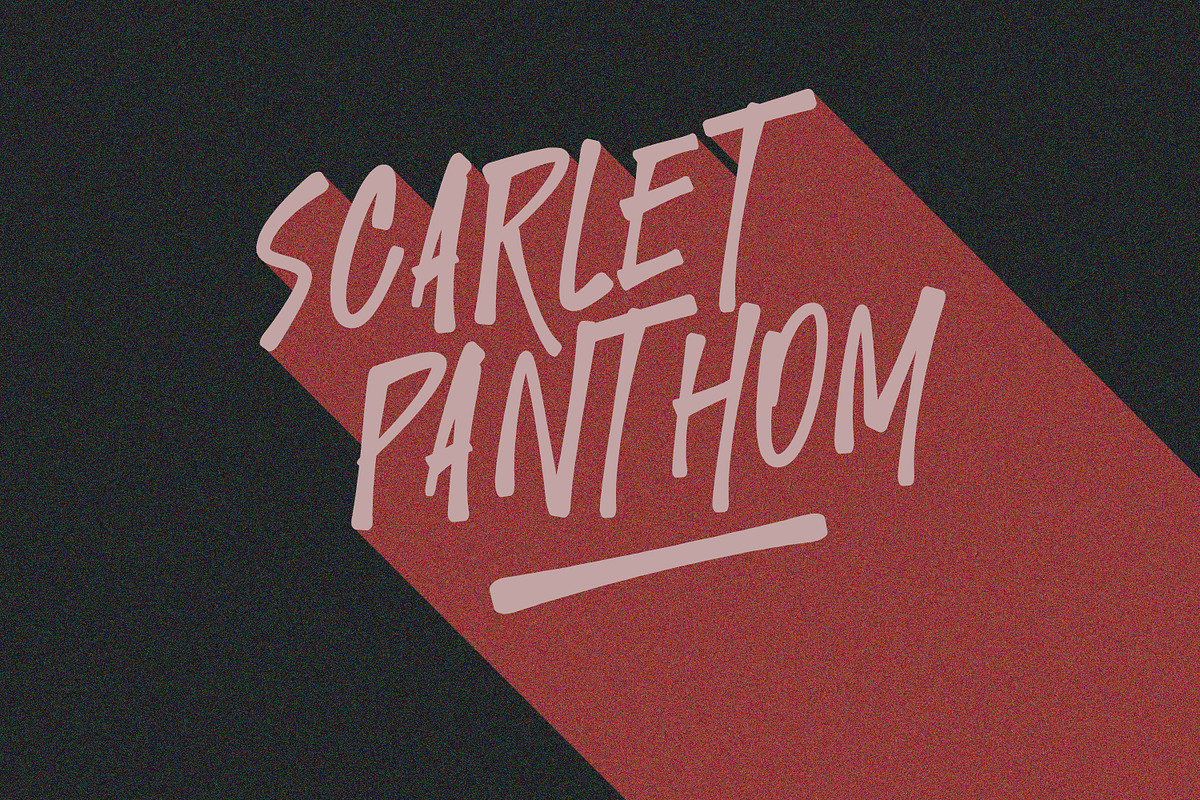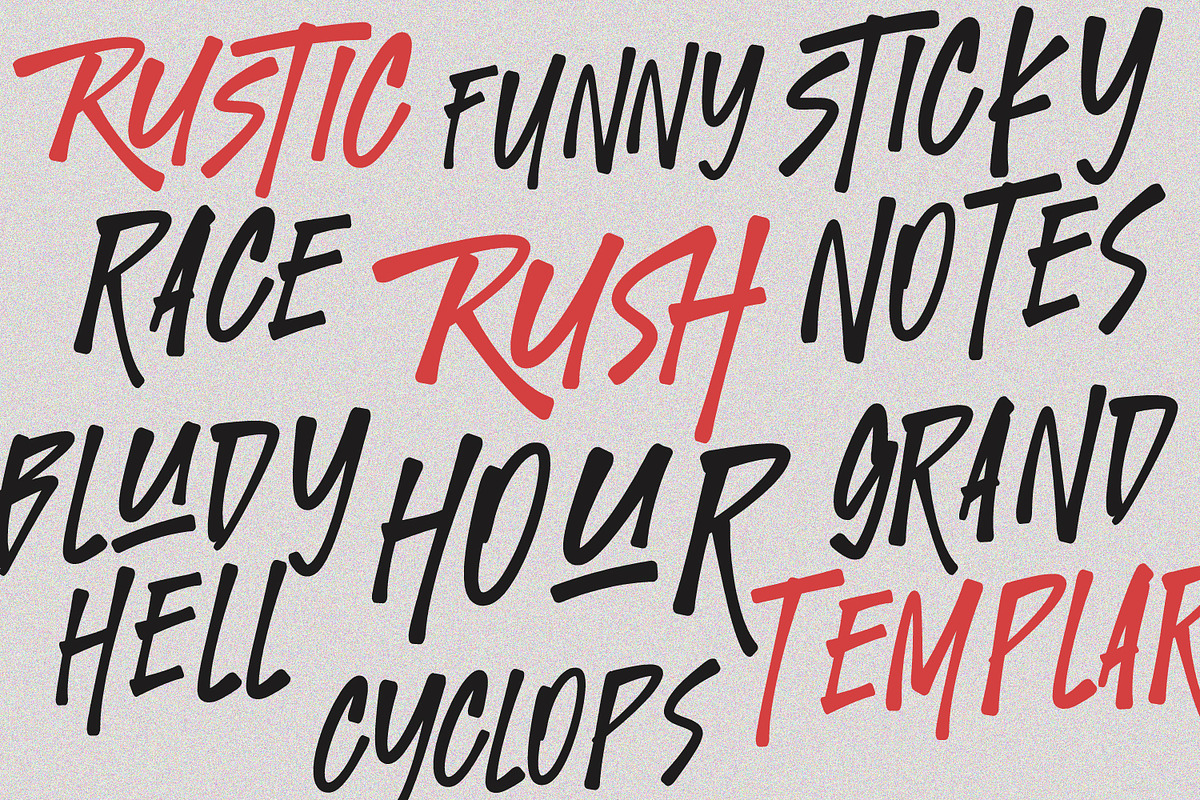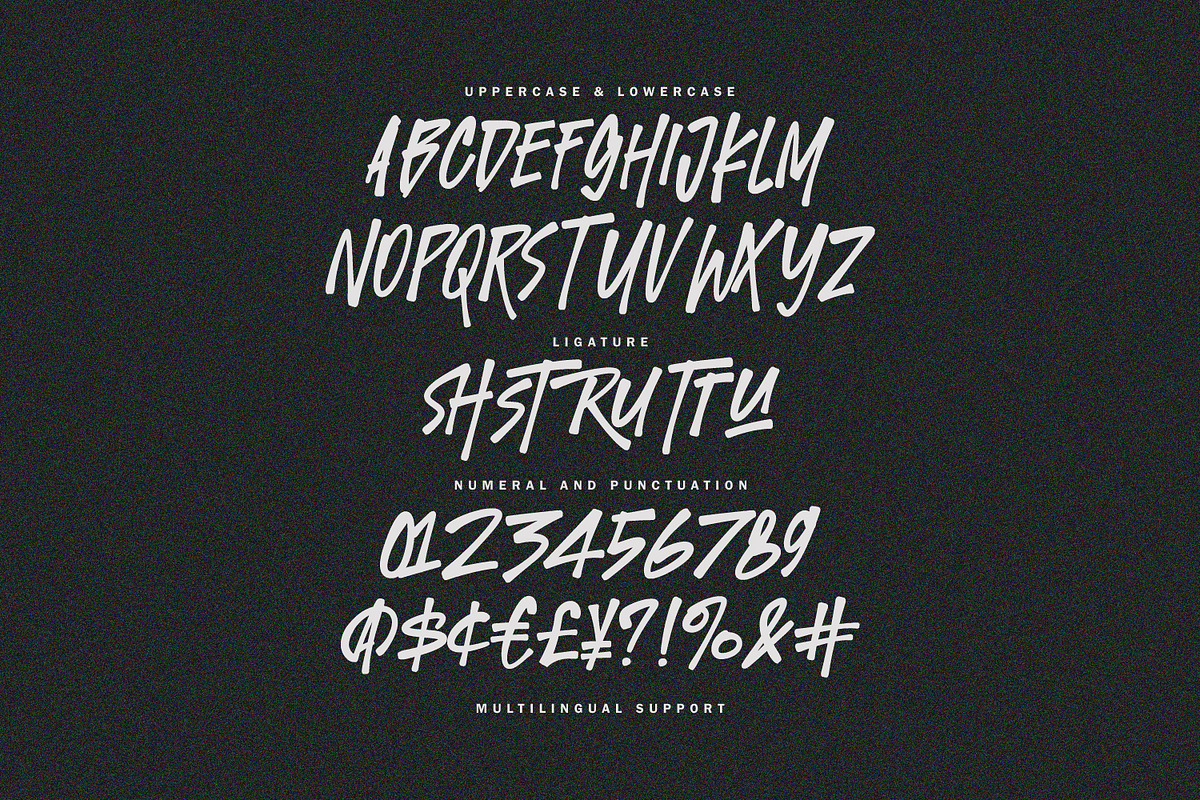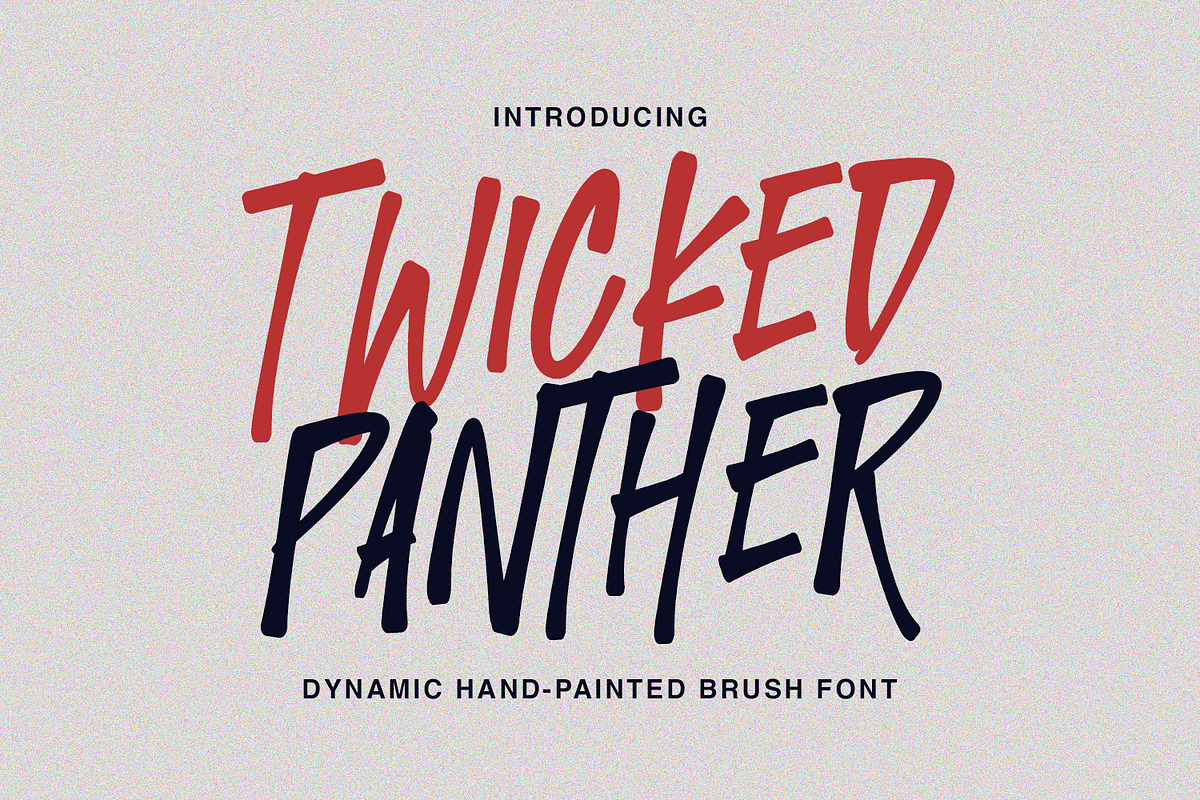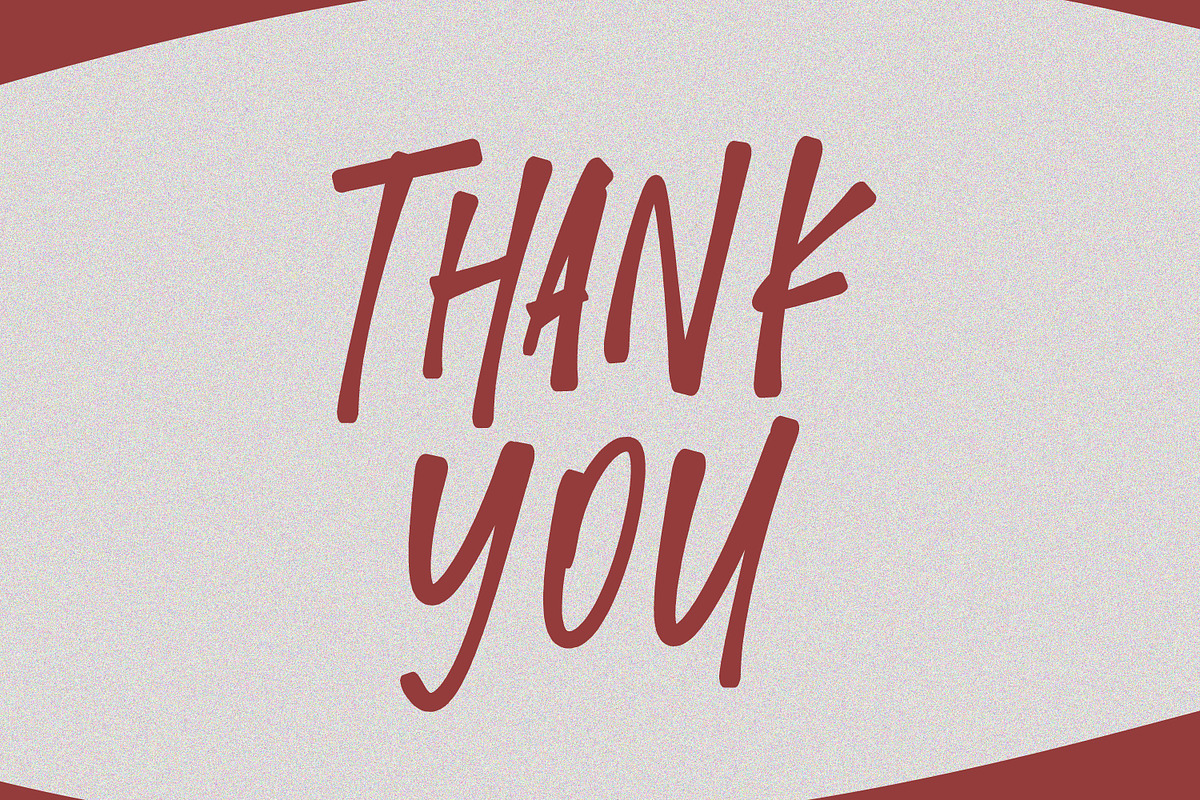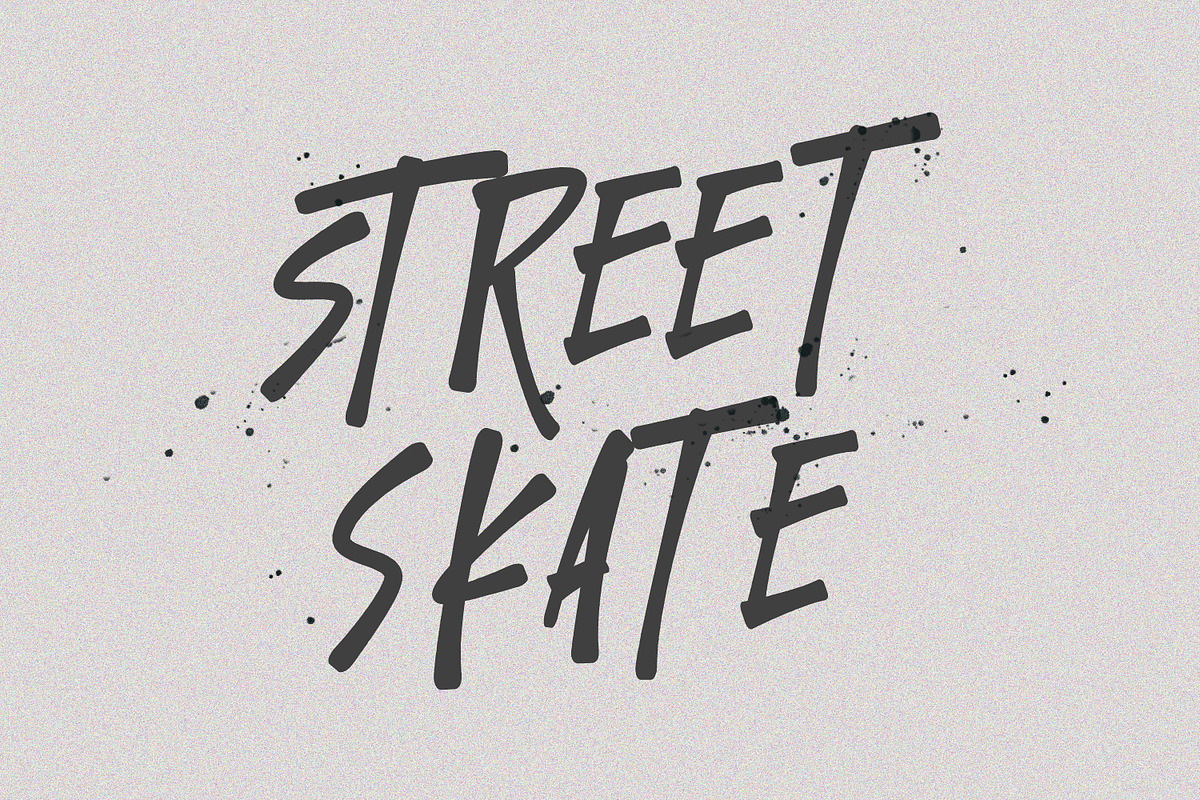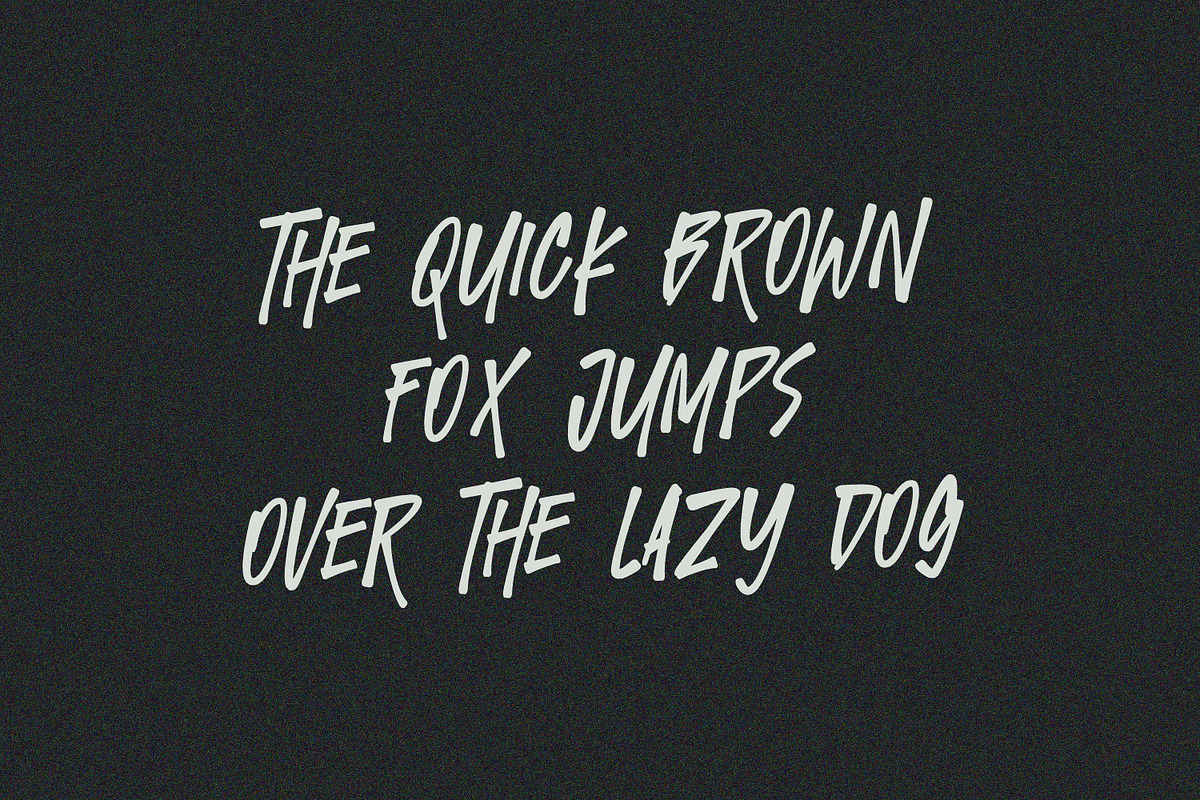
Twicked Panther Dynamic Handpainted
Introducing Twicked Panther, a dynamic, hand-painted brush font designed to make an instant and unforgettable statement. This font perfectly captures the raw energy of urban street art and the cool, effortless vibe of a rebellious spirit.
Why Twicked Panther will elevate your design:
- Electrifying Style: Its rough, textured strokes and slightly aggressive slant give it a high-octane feel, perfect for projects that demand attention.
- Versatile Impact: Whether you're designing merchandise, album covers, gaming logos, powerful branding, or social media graphics, Twicked Panther cuts through the noise.
- Optimal Readability: Despite its artistic texture, the clear, strong letterforms ensure your message is communicated clearly and effectively.
- Dual-Tone Appeal: As showcased in the preview, it works brilliantly in vibrant dual-color schemes, allowing you to highlight key words and add a layer of sophistication to its raw energy.
- Features: Uppercase & Lowercase, Numerals & Punctuation, Ligatures for a more natural flow, and Multilingual Support.